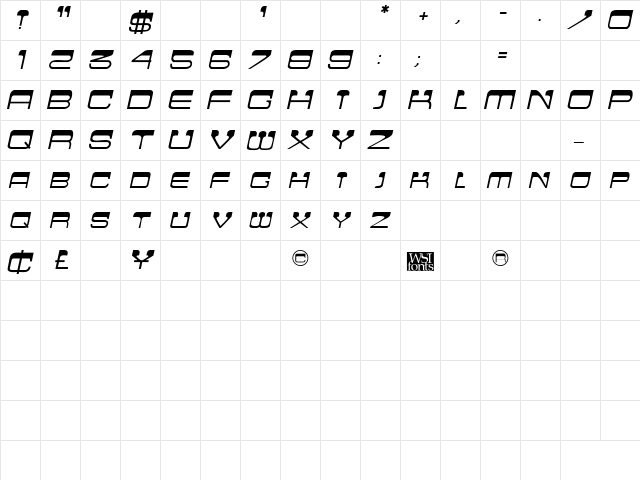
Crew Cut Caps Italic Italic
Design Context for Crew Cut Caps Italic Typeface
Crew Cut Caps Italic takes a measured approach to typography — its balanced proportions and neutral character make it a reliable workhorse for both digital and print work. The slanted form adds forward momentum and visual energy.
Pro Tip: Use Crew Cut Caps Italic for emphasis, pull quotes, and subheadings where its slanted energy can add rhythm to the layout.